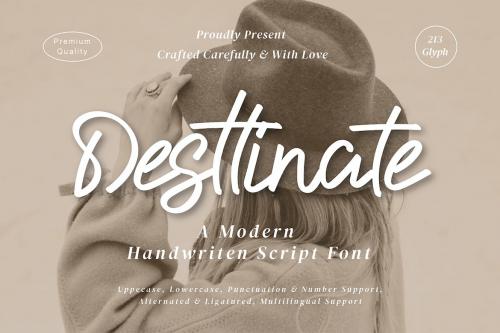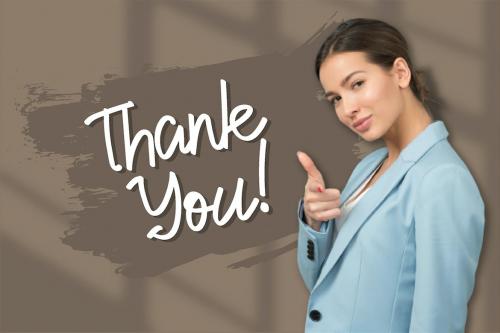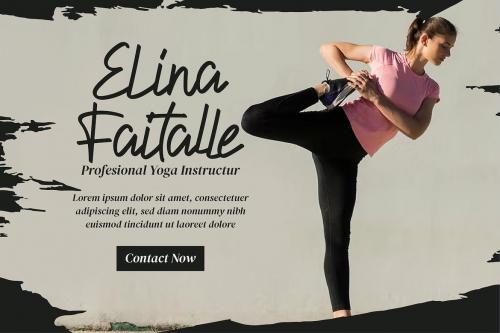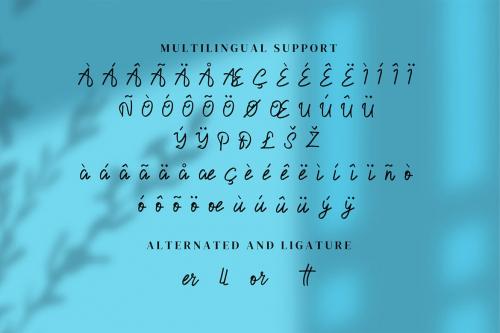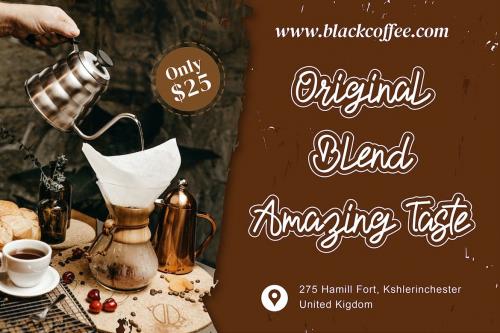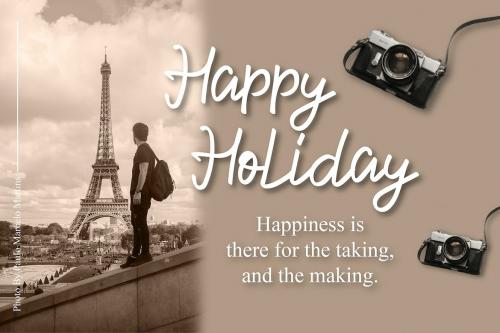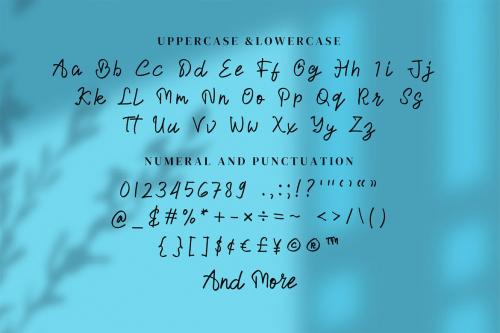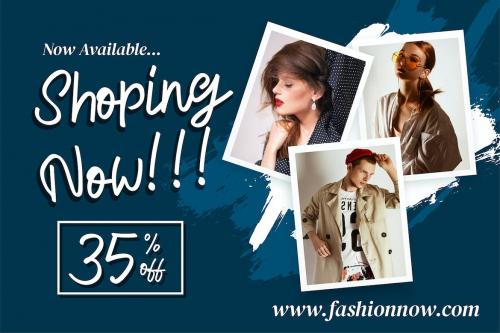
destiny - 现代手书字体
Desttinate is a Modern script font, will be suitable for any projects such as logo’s, branding projects, homeware designs, product packaging, mugs, quotes, posters, shopping bags, t-shirts, book covers, name card, invitation cards, greeting cards, label, photography, watermark, special events, and all your other lovely projects that need beautiful handwriting taste.
**Features :**
- Uppercase & Lowercase
- Numerals
- Punctuations (OpenType Standard)
- Accents (Multilingual Characters)
- Ligatures and Alternative Style Stylistic Set